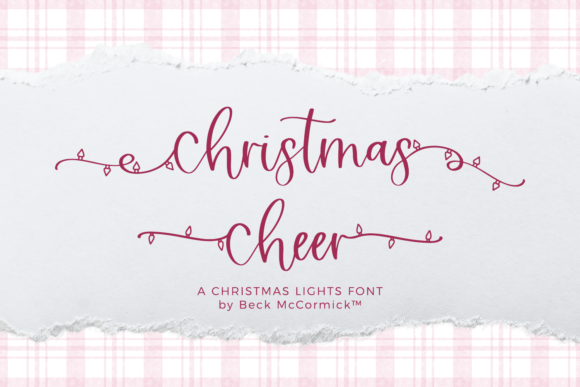
Get into the festive spirit with Christmas Cheer Font, a delightful script font designed by BeckMcCormick. This font is the perfect choice for adding a touch of holiday magic to your designs. With its modern calligraphy style and charming Christmas light swashes and flourishes, Christmas Cheer will make your projects merry and bright.
Whether you're creating Christmas cards, gift tags, or personalized items, this font will bring a sense of joy and warmth to your designs. The whimsical nature of Christmas Cheer Font captures the essence of the holiday season, making it the ideal choice for spreading holiday cheer.
Not only is Christmas Cheer Font perfect for traditional paper projects, but it also shines in the digital world. With its SVG designs specially crafted for the holiday season, you can create stunning and crafty projects using your Cricut or Silhouette machine. Let your creativity run wild as you design unique and eye-catching creations that will impress everyone.
But that's not all – Christmas Cheer Font is also perfect for creating holiday-themed mug designs and other apparel. Imagine sipping hot cocoa from a mug adorned with charming script text, or wearing a cozy sweatshirt featuring a festive phrase. This font will add that extra touch of magic to your holiday wardrobe.
Looking to spruce up your Christmas tree this year? Use Christmas Cheer Font to create beautiful and personalized Christmas ornaments. Add names, dates, or meaningful quotes to make your tree truly special. Each ornament will be a unique reflection of your style and personality, making your tree the envy of all your friends and family.
Share the holiday spirit on social media with quote graphics created using Christmas Cheer Font. Spread messages of love, joy, and hope with beautifully designed graphics that will captivate your followers. Let your posts stand out in the sea of holiday content by using this font to create eye-catching and meaningful visuals.
In summary, Christmas Cheer Font is the ultimate font for adding a touch of holiday magic to your designs. Its modern calligraphy style, Christmas light swashes, and flourishes will make your projects come alive. Whether you're creating Christmas cards, personalized items, SVG designs, mug designs, ornaments, or quote graphics, this font is your go-to choice. Get ready to spread holiday cheer with Christmas Cheer Font!